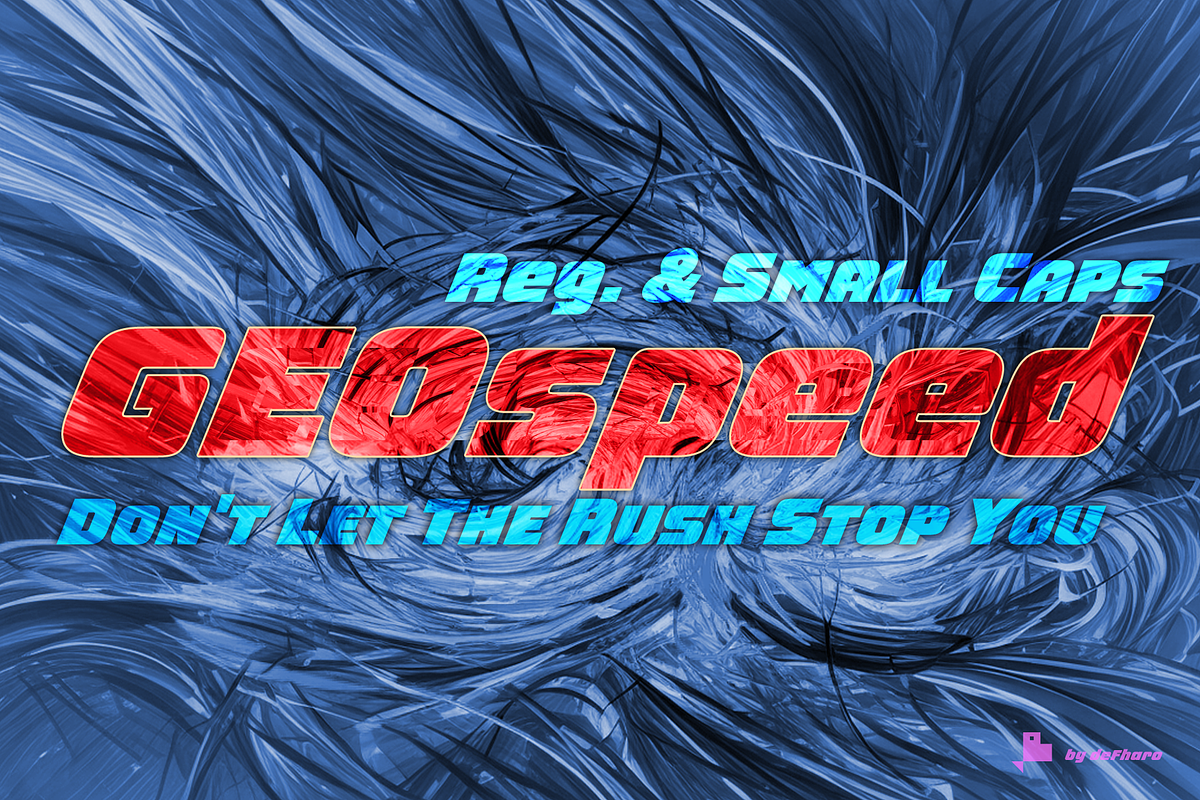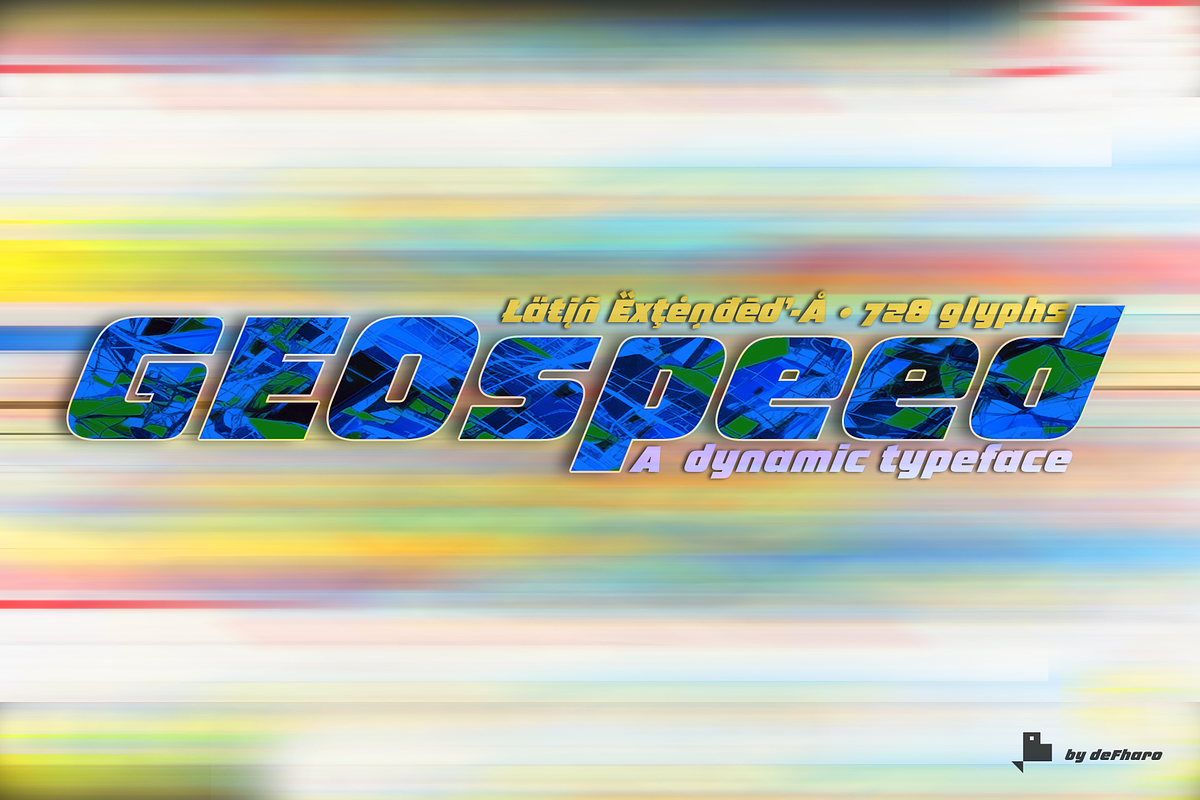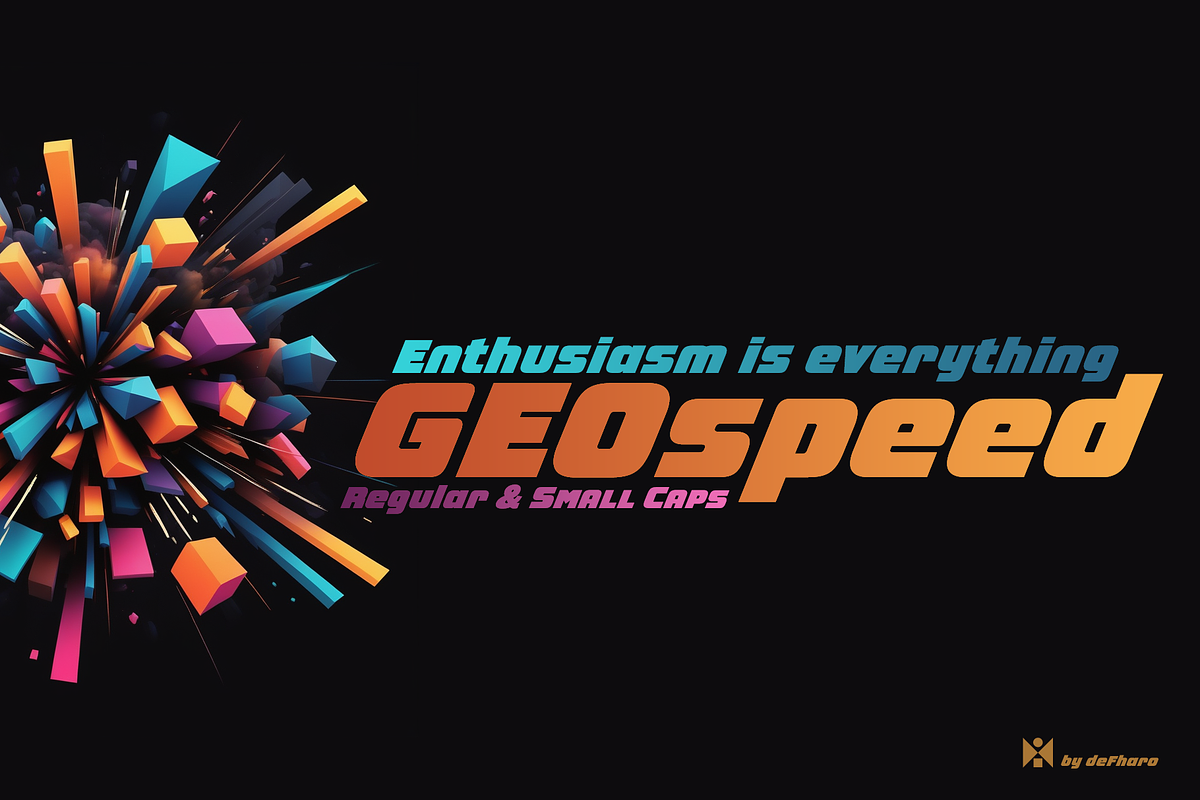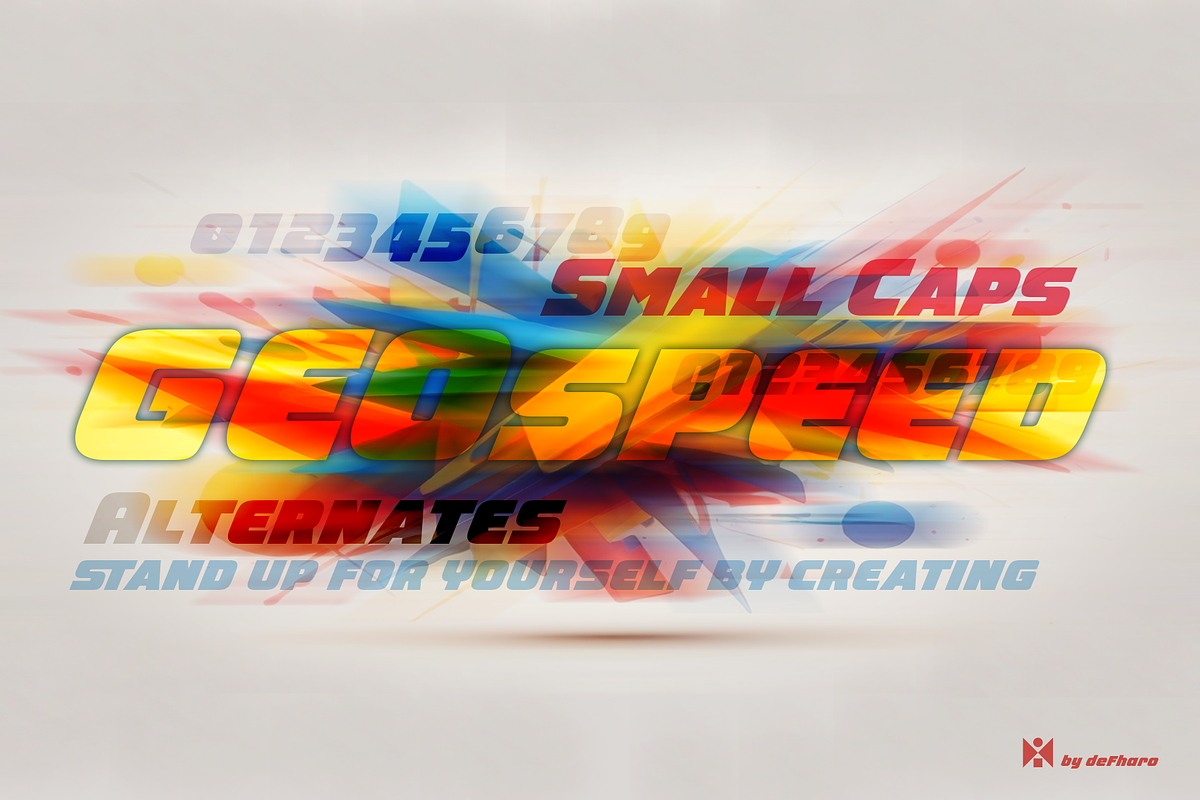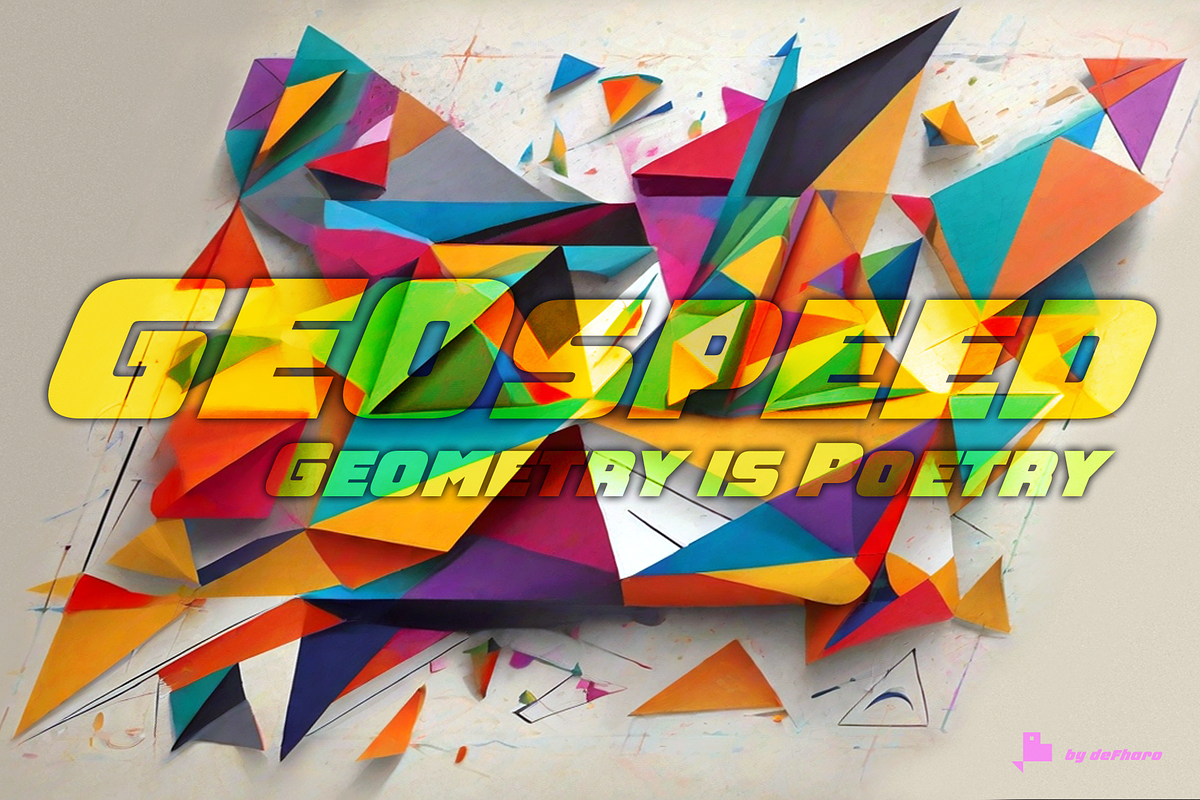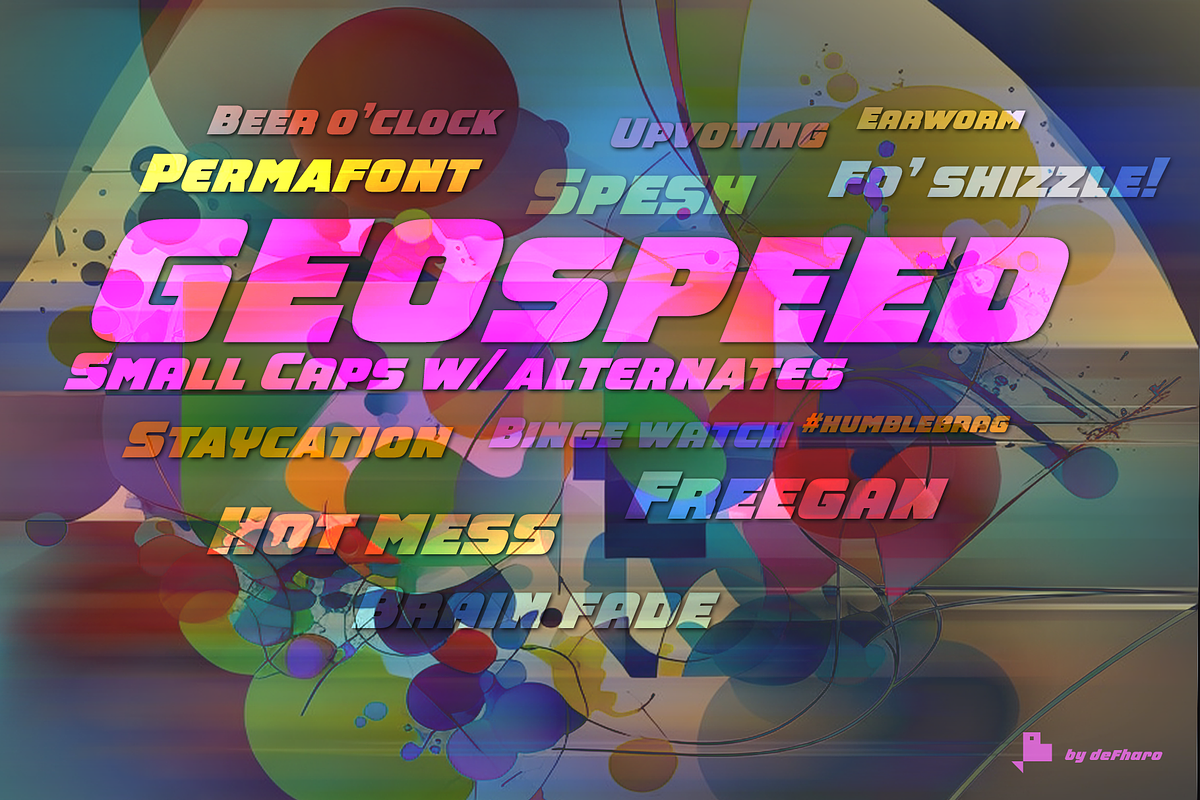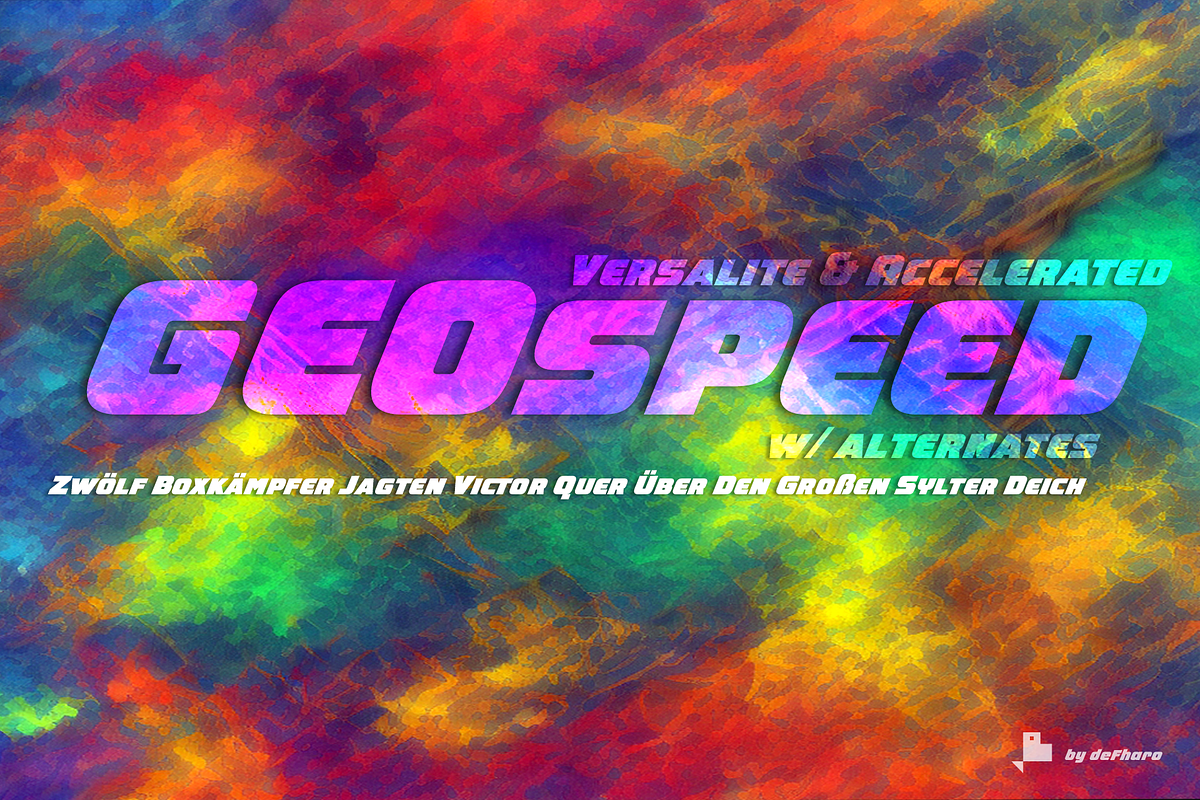
GEOspeed Reg. & Small Caps
GEOspeed, a typeface that redefines design standards, this typeface goes beyond conventional, fusing robustness with elegance. Ideal for advertising use, posters or banners, GEOspeed is the very essence of modern visual expression.
Regular and Versalite: Two Styles, One Powerful Visual Identity:
GEOspeed features two unique styles to meet all your creative needs. The Regular version provides solidity and clarity, while the Versalite adds a bold and distinctive touch. Together, these styles allow you to explore an unlimited range of visual expressions.
22 degree inclination: Movement and modernity in each letter:
With a 22-degree incline, GEOspeed is not just about movement, it also has an avant-garde feel. Each letter is an expression of dynamism, capturing attention and carrying your message into the future. Each letter is a statement of progression and avant-garde. Readability is guaranteed with meticulous metrics and kerning.
Advanced OpenType features.
GEOspeed's advanced Open Type features give you precise control over the appearance of your text. From sophisticated ligatures to typographic variations, your creativity is the limit. Explore an infinite range of possibilities with GEOspeed's numbers and letters set. From striking figures to expressive letter combinations, each design is unique. Includes dynamic fractions that maintain readability without sacrificing style. Every detail has been perfected to ensure a flawless typographic experience.
- 28 Geometric Icons (Accessible icons like Small Caps)
- GEOspeed font includes the symbol of Bitcoin and currency symbols.
- OpenType Features: Additional languages, All Alternates, Alternate Annotation Forms, Bitcoin, Capital Spacing, Contextual Alternates, Denominators, Discretionary Ligatures, Extended Fractions, Historical Forms, Inferiors, Kerning, Localized Forms, Numerators, Oldstyle Figures, Ordinals, Scientific Inferiors, Slashed Zero, Small Capitals, Small Capitals From Capitals, Standard Ligatures, Stylistic Set, Subscript, Superior letters, Superiors, Superscript, Titling alternates.6*